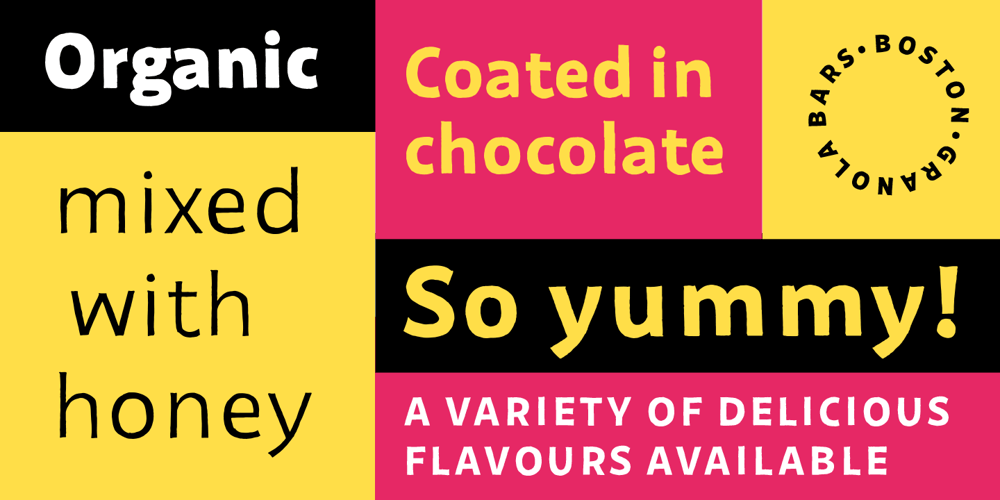
Geria
Geria font
Geria Font Family was designed by Teo Tuominen and published by LetterMaker. Geria contains 4 styles and family package options. Geria is a hand drawn sans serif in four weights. Despite being rough and organic, Geria retains the basic structure and shape of a readable sans serif. The result is a functional typographic tool with a lot of personality. The family comes in four carefully balanced weights that offer a lot of contrast from the delicate Light to the punchy Heavy weight. Geria is perfect for display use in branding, packaging, editorial design, posters and advertising.